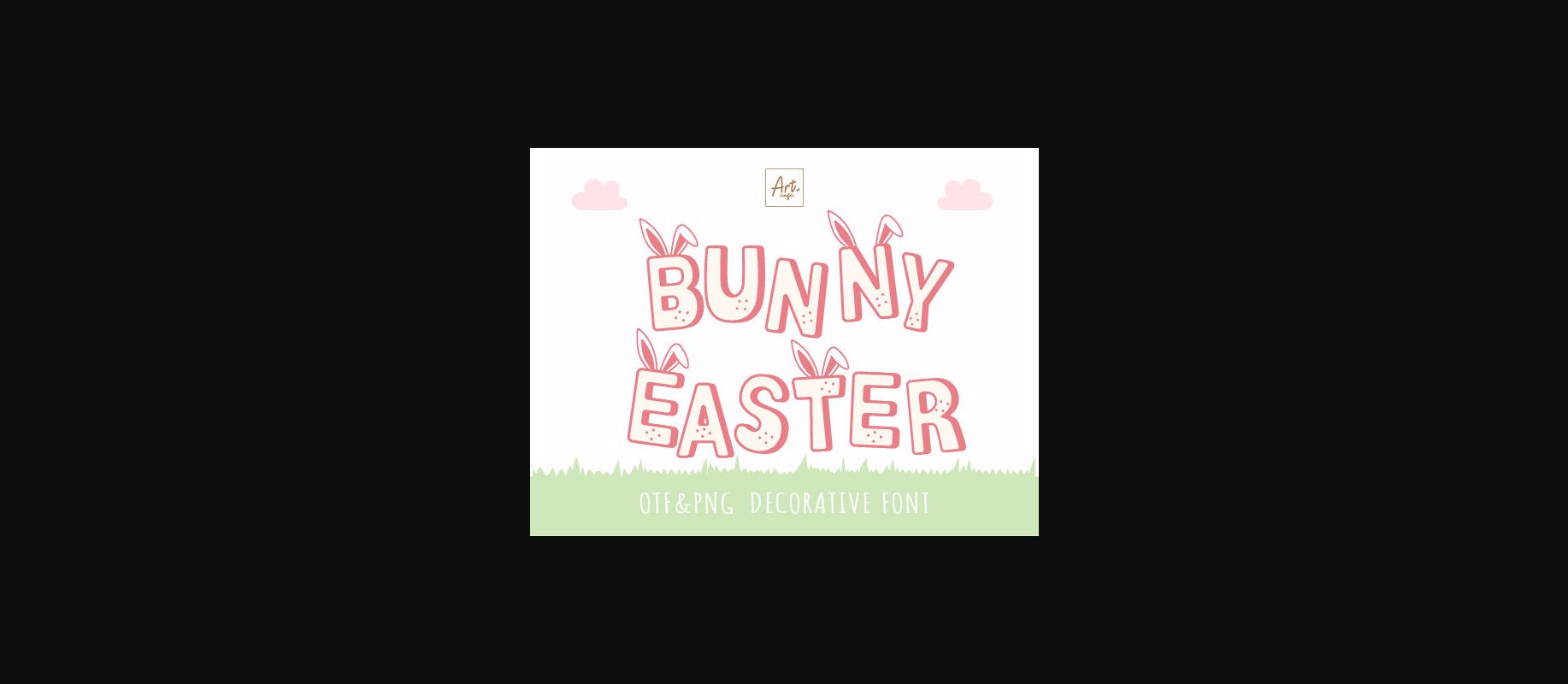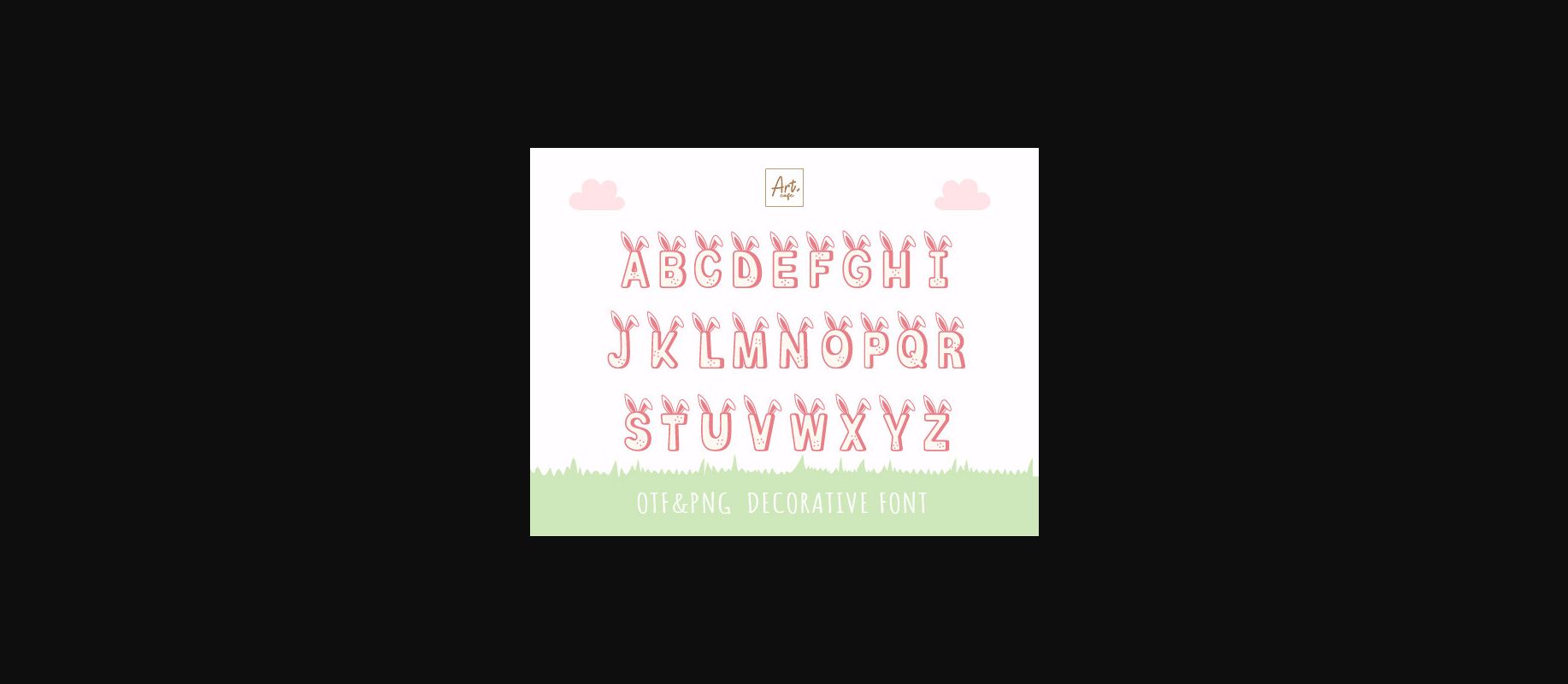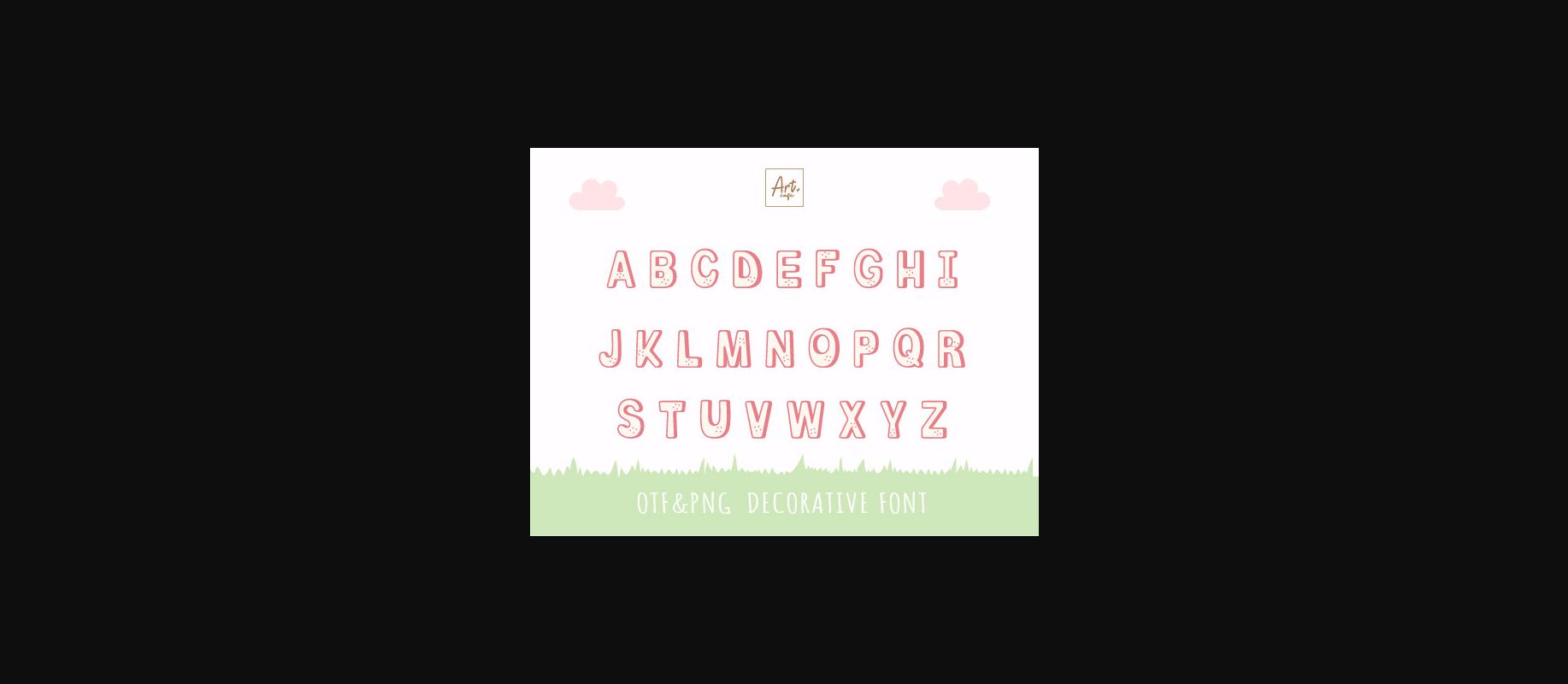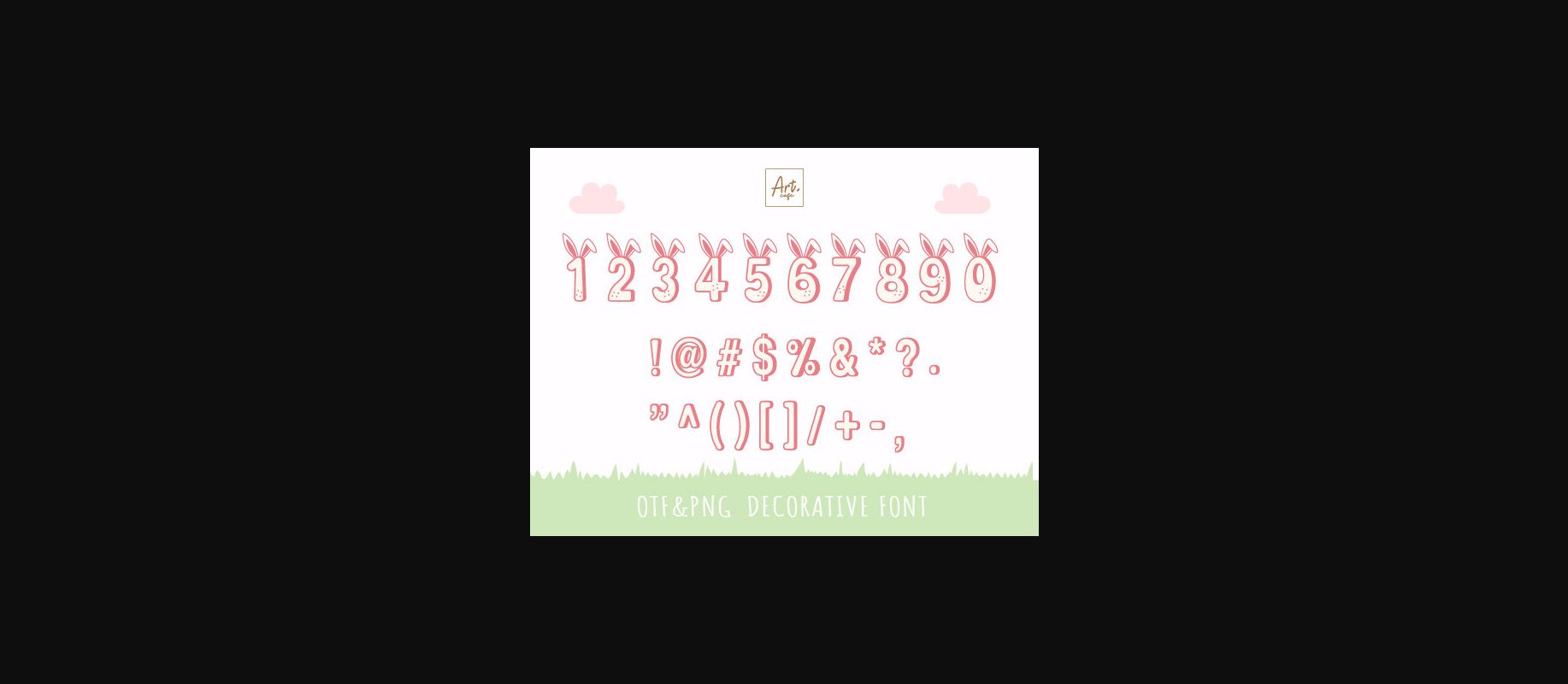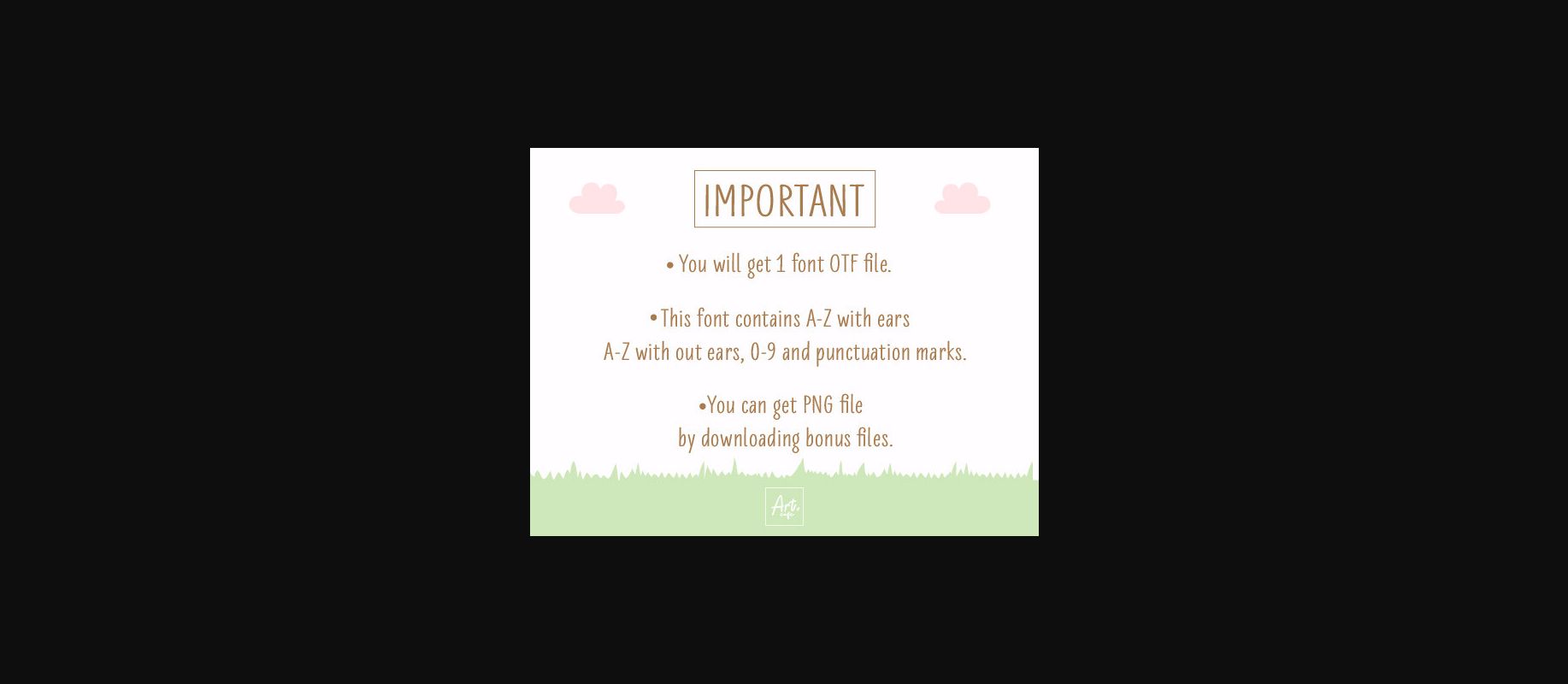
Bunny Easter Font
About Bunny Easter Font
BUNNY EASTER font is cute and suitable for Easter and kids. This font is bold, it offers support for all characters of the English language for display font.